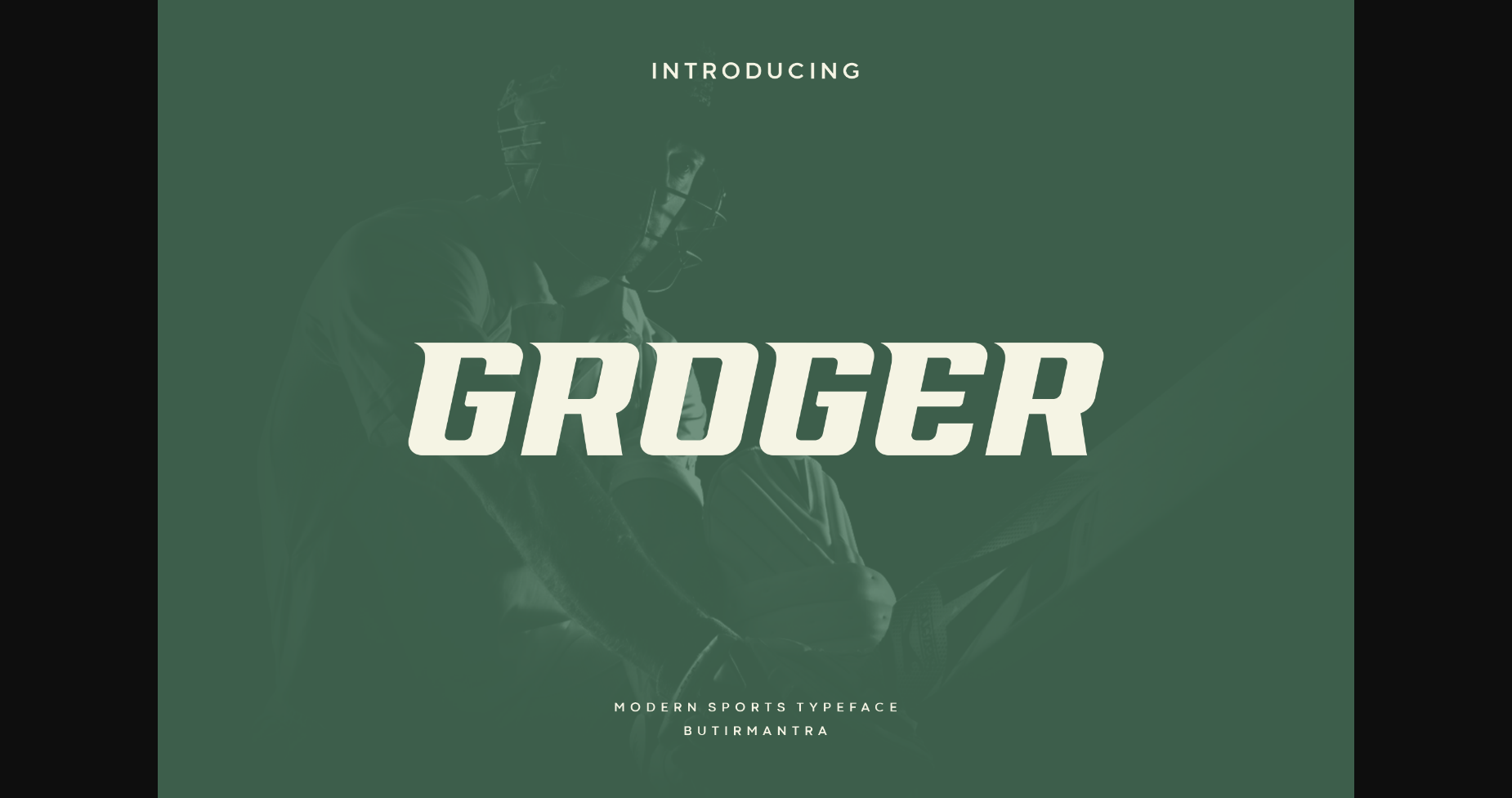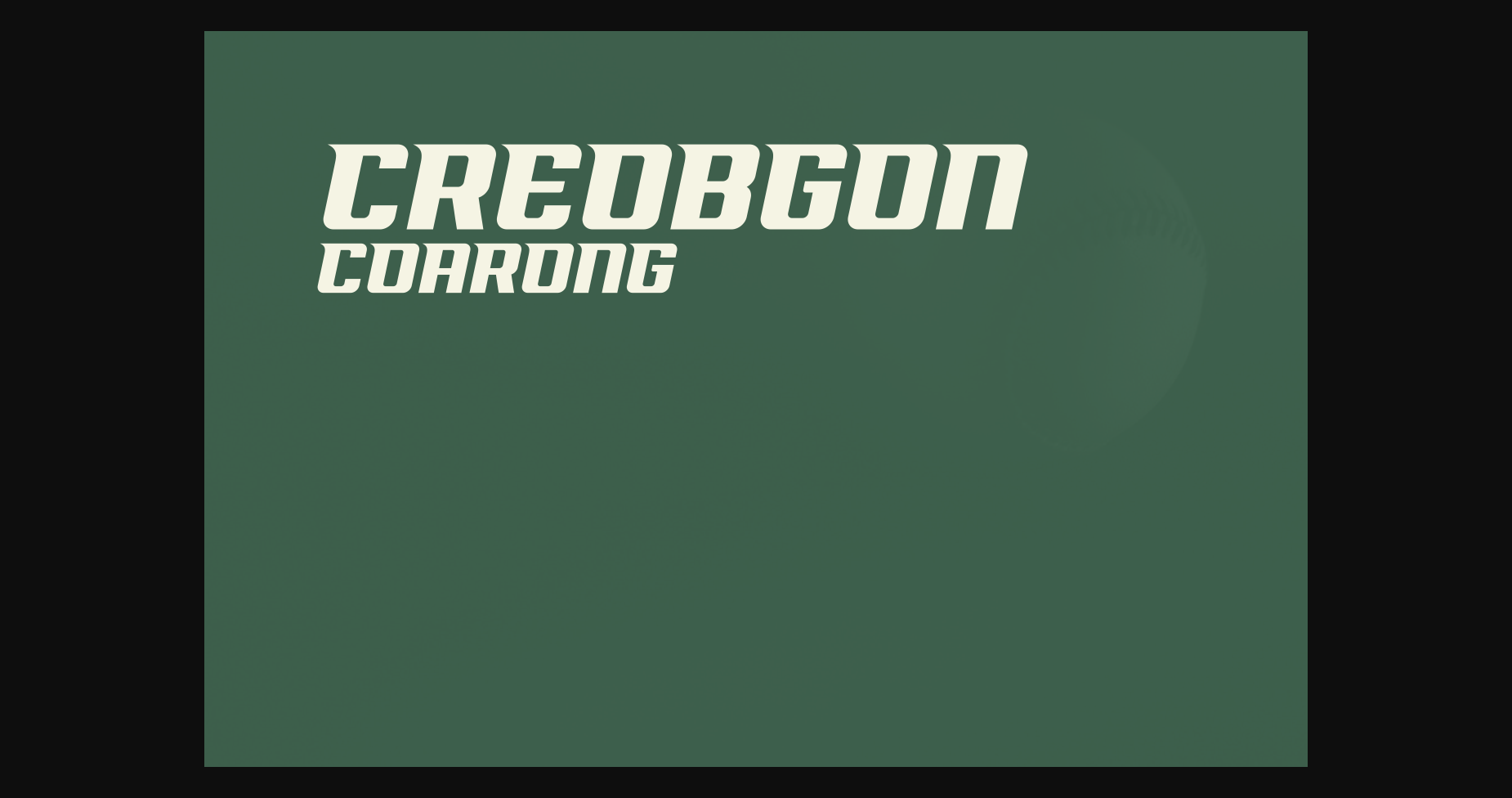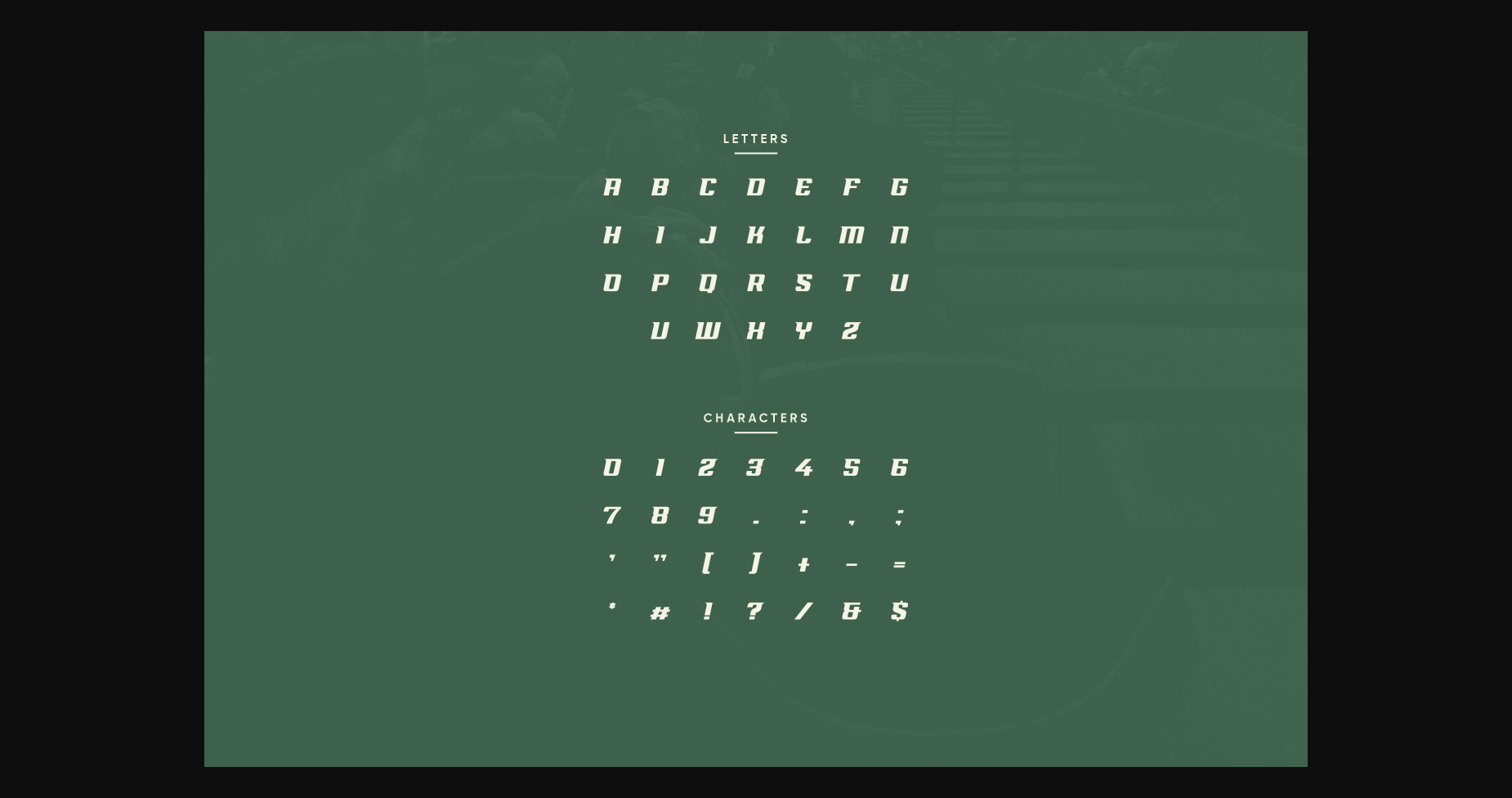
About Groger Font
Groger is modern sport font, comes with all-caps speaks speed, racing, and roaring machine with the highest RPM you can get on asphalt. With strong sharp corners and a solid shape with pointy corners to make it powerful and go whoops, it will make this font emphasize the racing spirit in your designs. Perfectly suited for sports themes, logos, headlines, posters, movie titles, magazines, and various other types of designs that are required for a shade standout and strong.